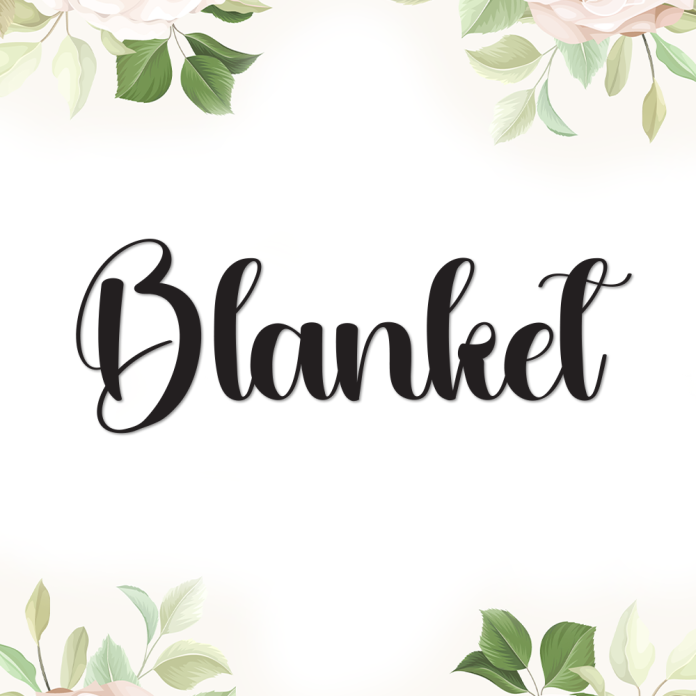
Blanket is a warm and gentle handwriting font that wraps your designs in a cozy, handmade feel. Its smooth strokes and relaxed flow create a sense of comfort and calm—perfect for projects that aim to feel personal, soothing, and heartfelt.
Ideal for quotes, journals, lifestyle blogs, branding, greeting cards, and cozy home decor, Blanket adds a touch of softness to every word.
Relaxed and cozy handwritten style
Smooth, flowing letterforms with a handmade charm
Great for heartfelt messages, journaling, and branding
Wrap your words in warmth with Blanket, the handwriting font that feels like home.